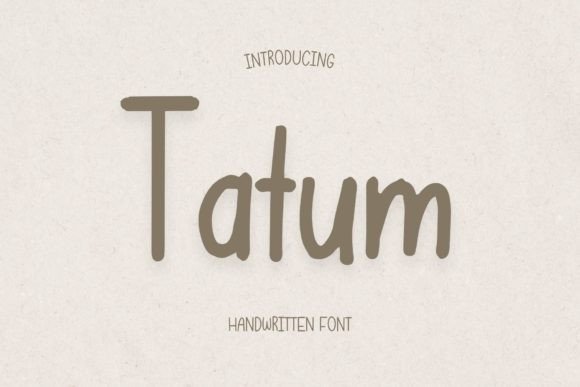
Welcome to the whimsical world of Tatum Font, where creativity and charm collide, promising to transform your designs into captivating masterpieces. This enchanting script font, meticulously crafted by Brown Cupple Fonts, embodies playfulness and authenticity, becoming the soul of your heartfelt projects.
With Tatum Font, you embark on a creative odyssey where your blog posts blossom with individuality, logos dance with vibrant energy, and branding takes on a storybook charm. Unleash your imagination and let Tatum Font guide you through a world of stunning ads, heartfelt invitations, and greeting cards that carry your messages with warmth and grace.
This font's versatility transcends boundaries, seamlessly blending into planners, photo albums, and decorations, adding a dash of magic to every cherished memory. Its delicate strokes and flowing curves evoke a sense of nostalgia, perfectly capturing the essence of handwritten letters and personal touches.
Imagine a world where designs come alive, telling stories with every stroke, every curve, every letter. Tatum Font becomes your creative muse, inspiring you to craft designs that resonate with audiences, leaving an indelible mark on their hearts. Whether you're a seasoned designer or just starting your creative journey, Tatum Font is your trusted companion, ready to transform your ideas into captivating realities. Embrace the allure of Tatum Font and let your imagination soar to new heights.